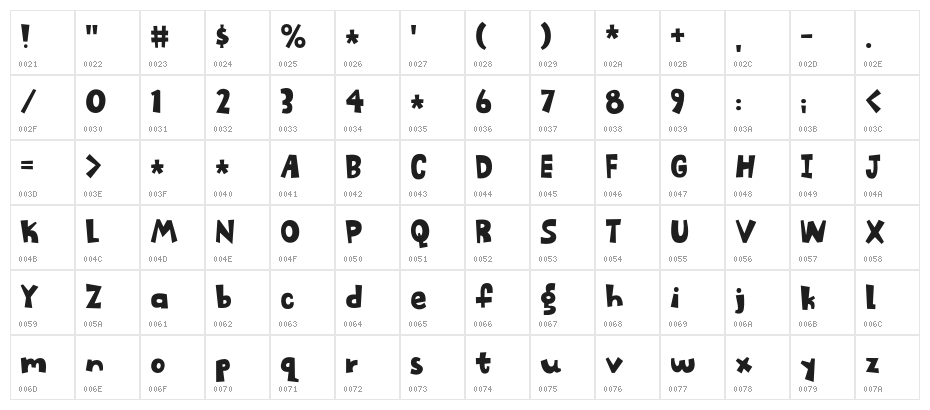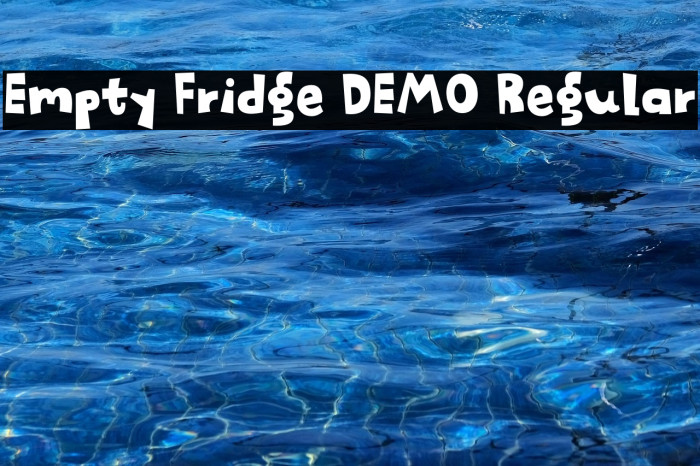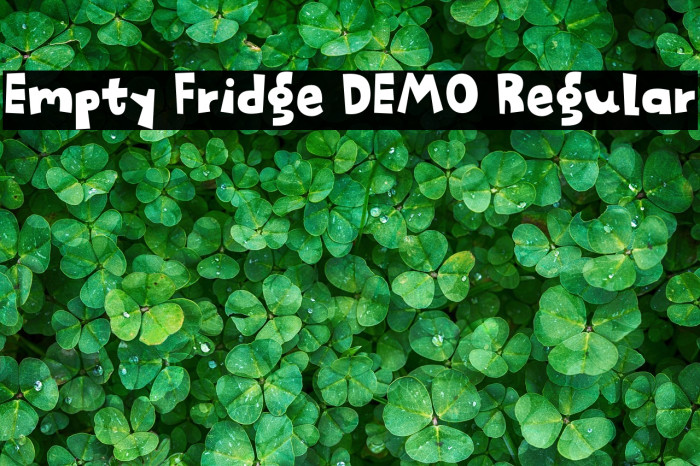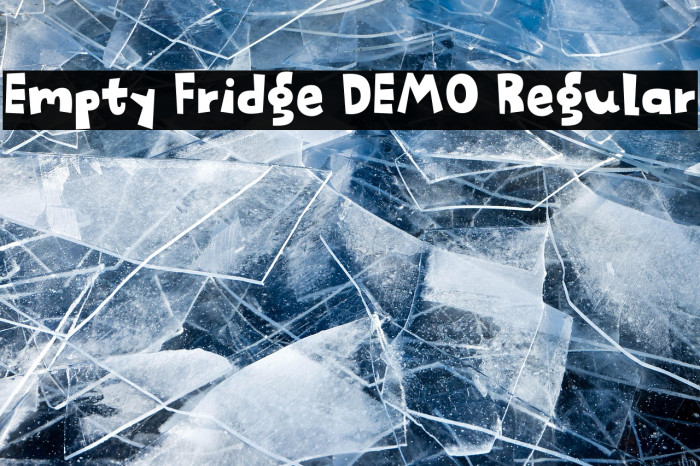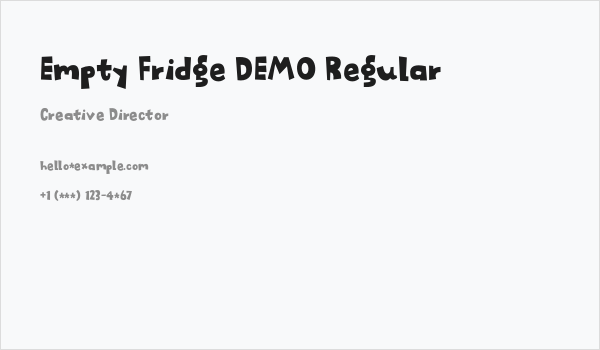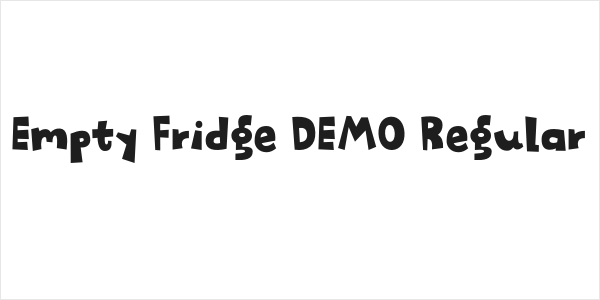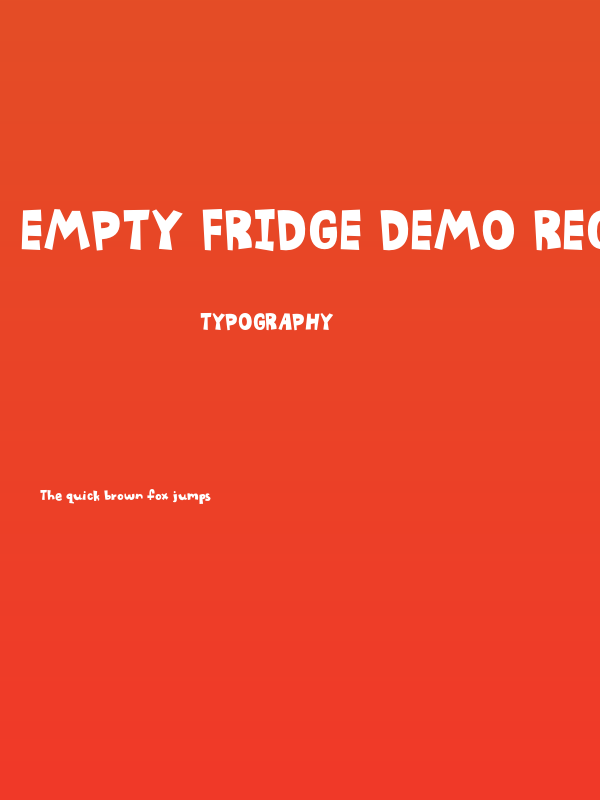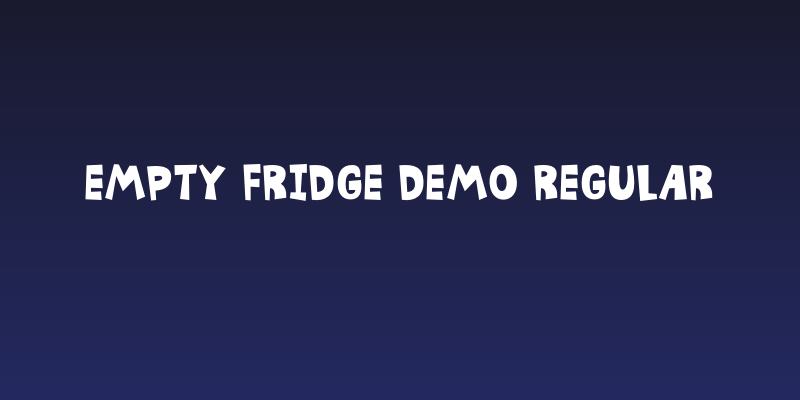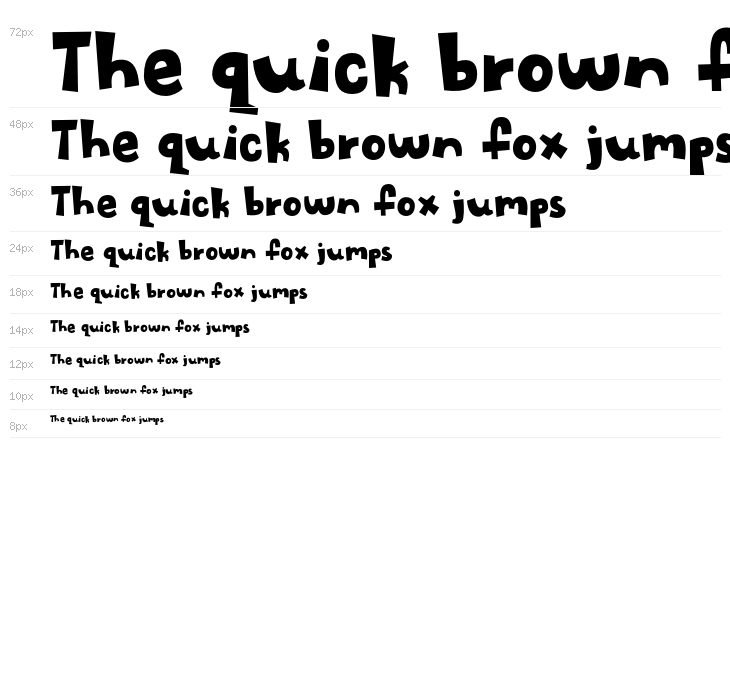
Empty Fridge DEMO Regular Font
Empty Fridge DEMO Regular Description
This playful and bold font features a whimsical and irregular design, with each character exhibiting a unique and quirky shape. The uppercase letters are robust and slightly tilted, giving a sense of movement and energy. The lowercase letters maintain a similar playful style, with rounded edges and varying heights, adding to the font's charm. The numbers are equally bold and dynamic, ensuring consistency across all characters. Special characters are creatively designed, maintaining the font's overall lively and fun aesthetic. This font is perfect for projects that require a touch of humor and creativity.
| Proposed Projects | Ideal for children's books, comic strips, playful branding, and creative posters. |